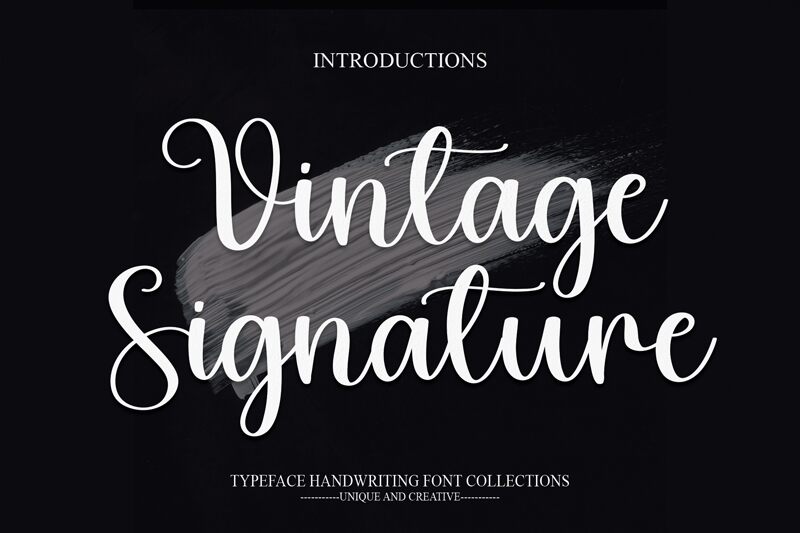
Vintage Signature is a stunning calligraphy font designed by scratchones. Its semi-light weight and elegant curves make it perfect for a variety of projects, from wedding invitations to branding materials. This font exudes sophistication, while maintaining a touch of whimsy that will capture the attention of any audience. Use Vintage Signature for signage, logos, or even social media graphics to add a unique and timeless feel to your design. With its vintage flair and signature style, this font is sure to make your project stand out from the rest.
the latest style letters are perfect for wall displays, wedding invitations, social media post logos, advertisements, product packaging, product designs, labels, photography, watermarks, invitations, stationery, and any project that requires taste handwriting.